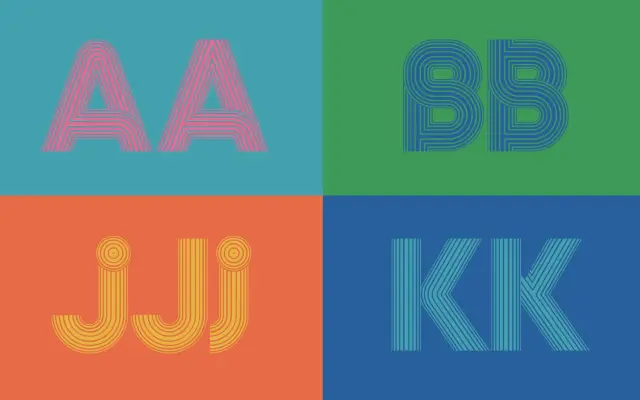
Maquinista
A prismatic display typeface by Alexander Wright drawing on 1970s Avant Garde geometry and Venezuelan graphic design, built for short bold headlines at large scale.
Layered letterforms with striped depth and angular construction give single words the graphic weight of signage, record sleeves and poster type. The design references Avant Garde and the structured geometric visual art of Venezuela, particularly the work of Gerd Leufert. Best used in large display settings where colour, shadow and pattern can amplify each character's dimensional quality.
Maquinista is a strictly display typeface with layered, prismatic letterforms built from hard geometry and striped depth, drawing on 1970s Avant Garde and Venezuelan geometric design traditions. Its dimensional construction and retro-pop character place it firmly in the display category.